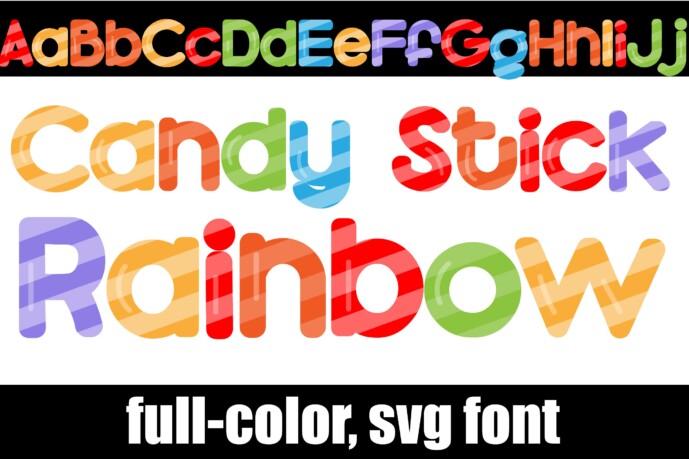
Candy Stick Rainbow Font
This full-color font features a rainbow striped candy cane-like font. There is an alt case of additional colors of each letter that you can access through your system or Silhouette’s glyph map.